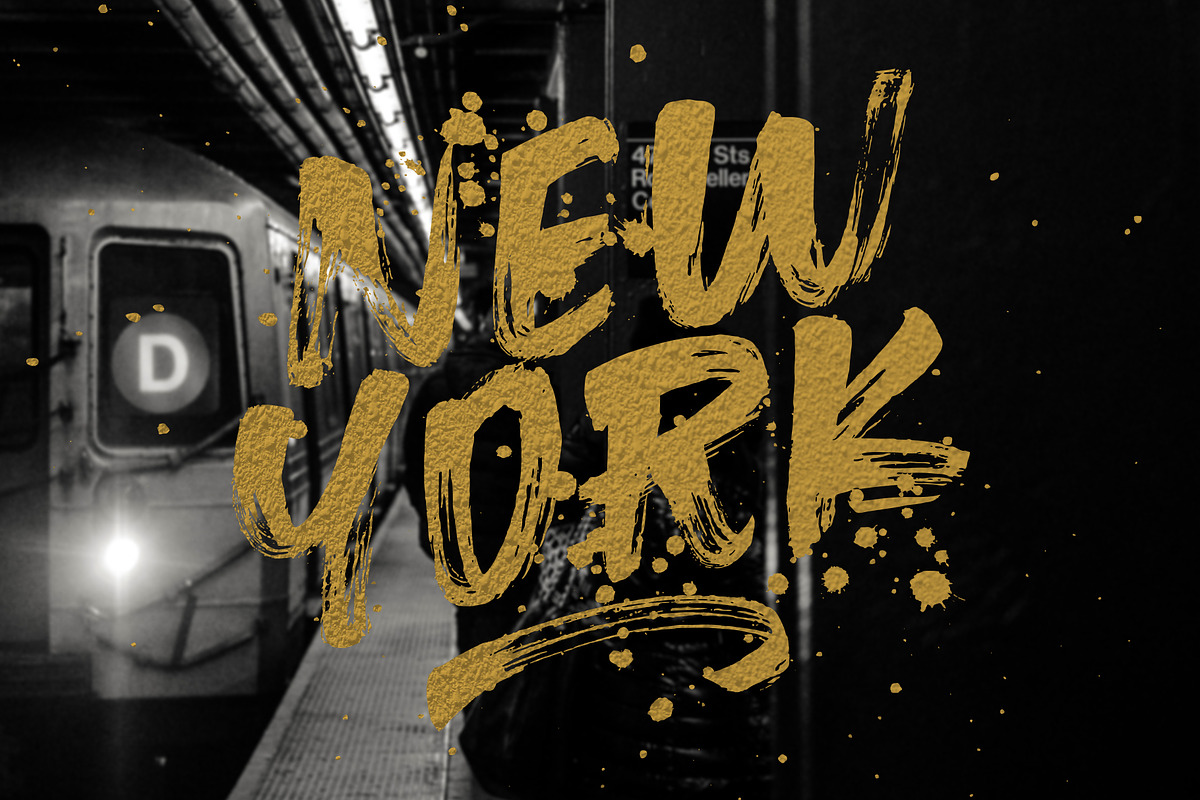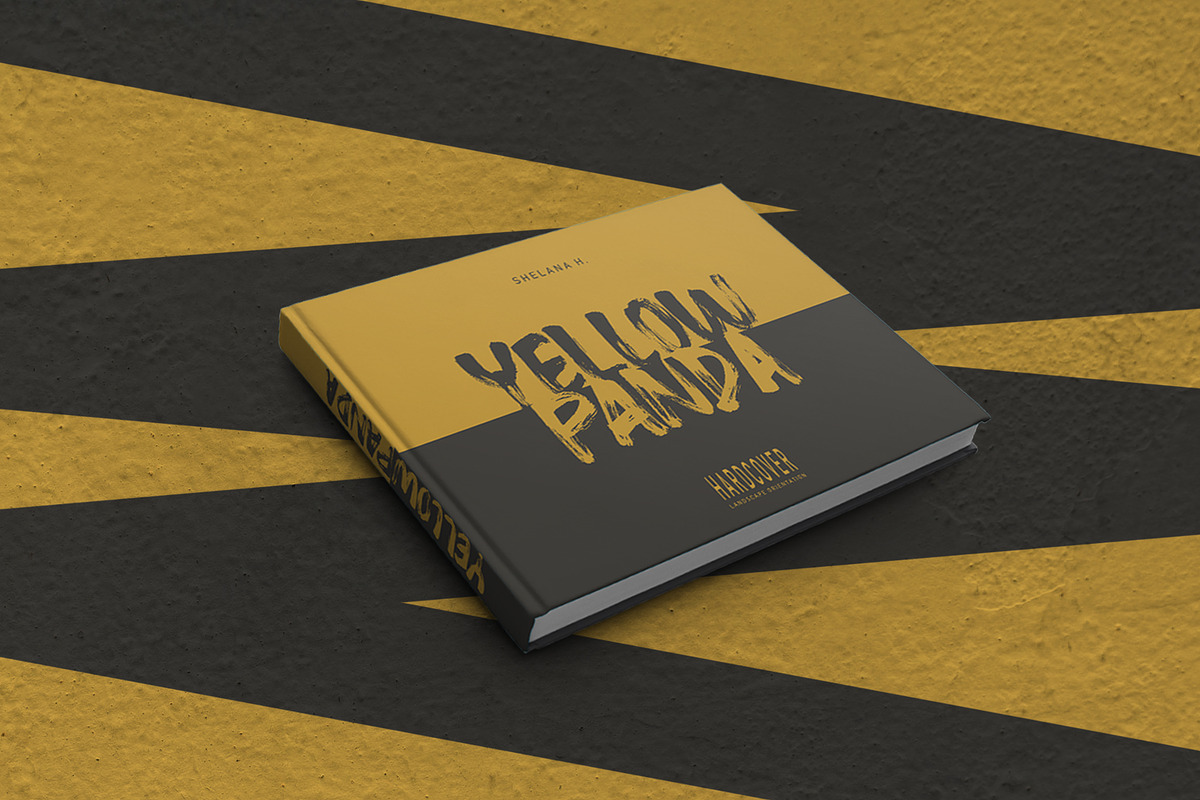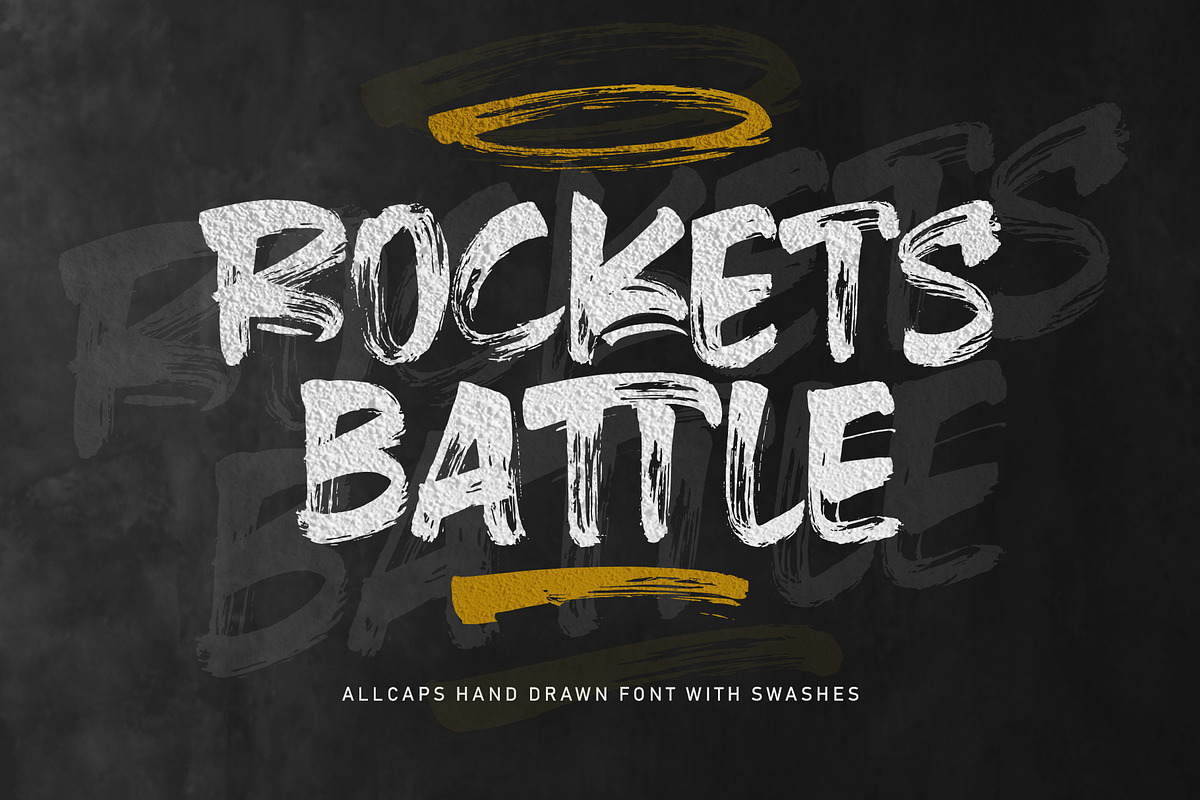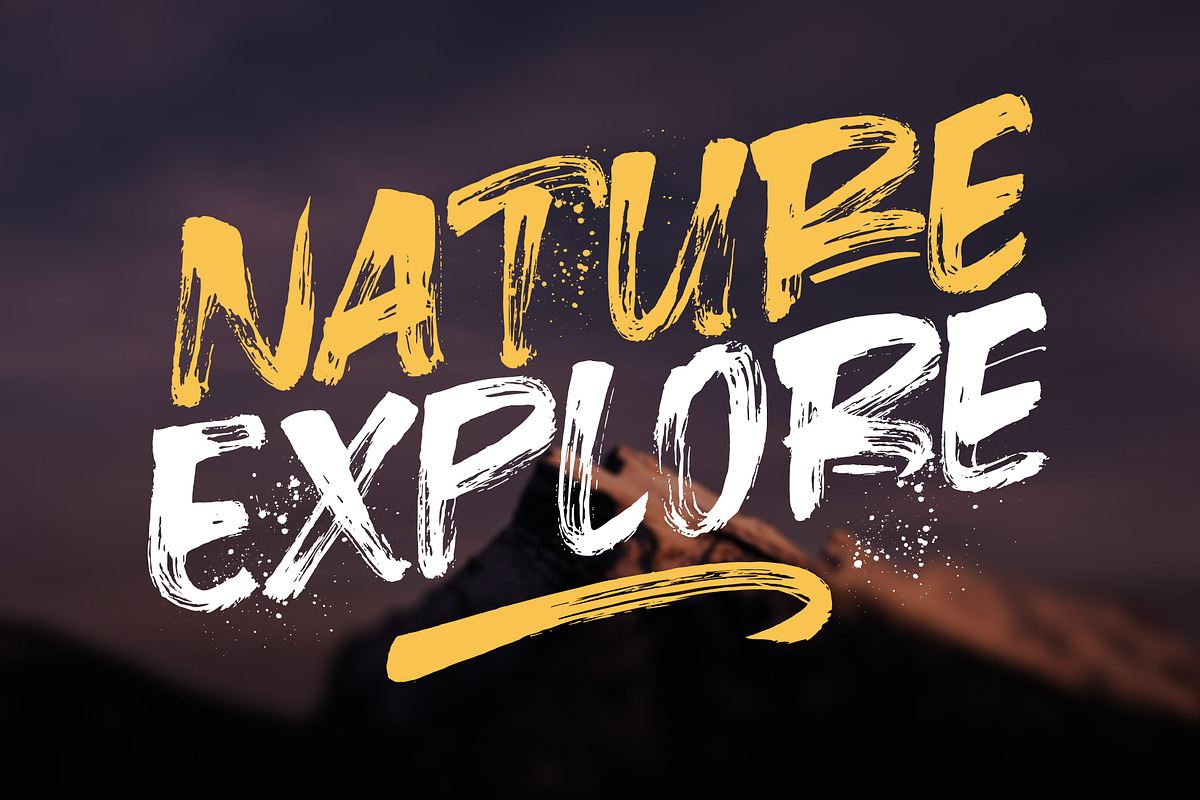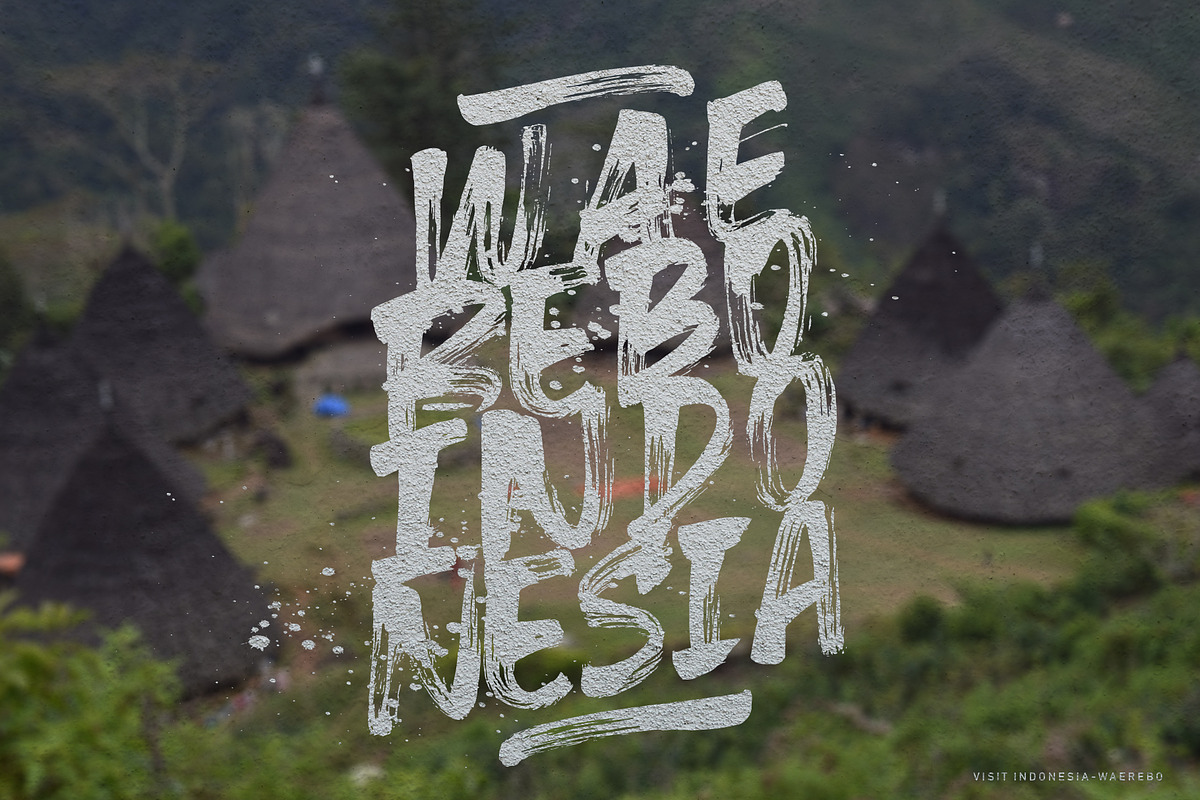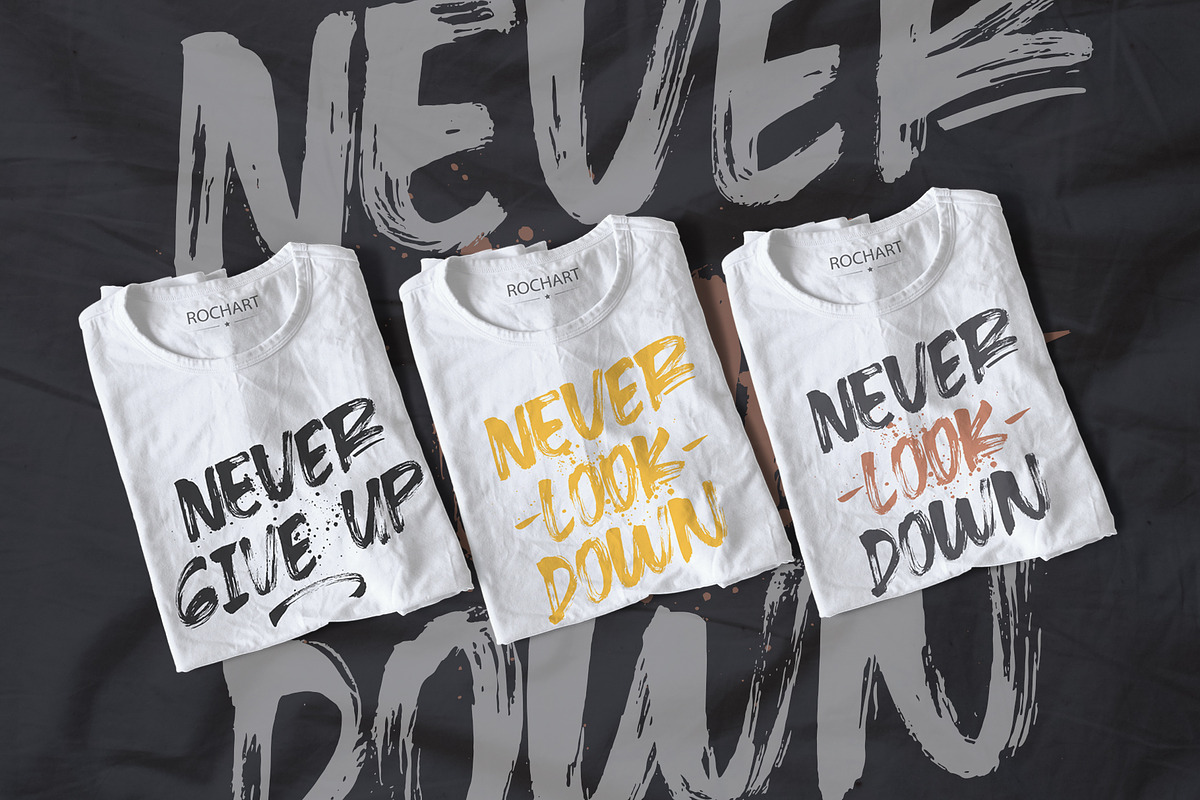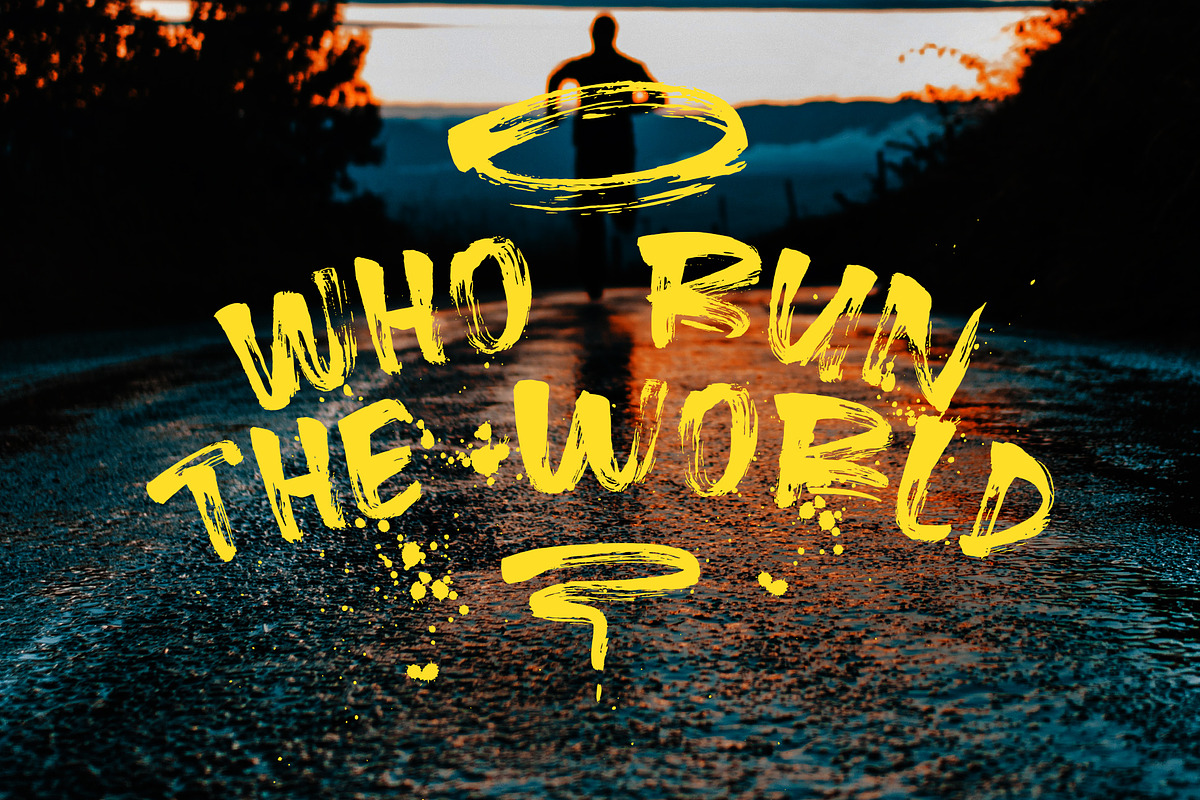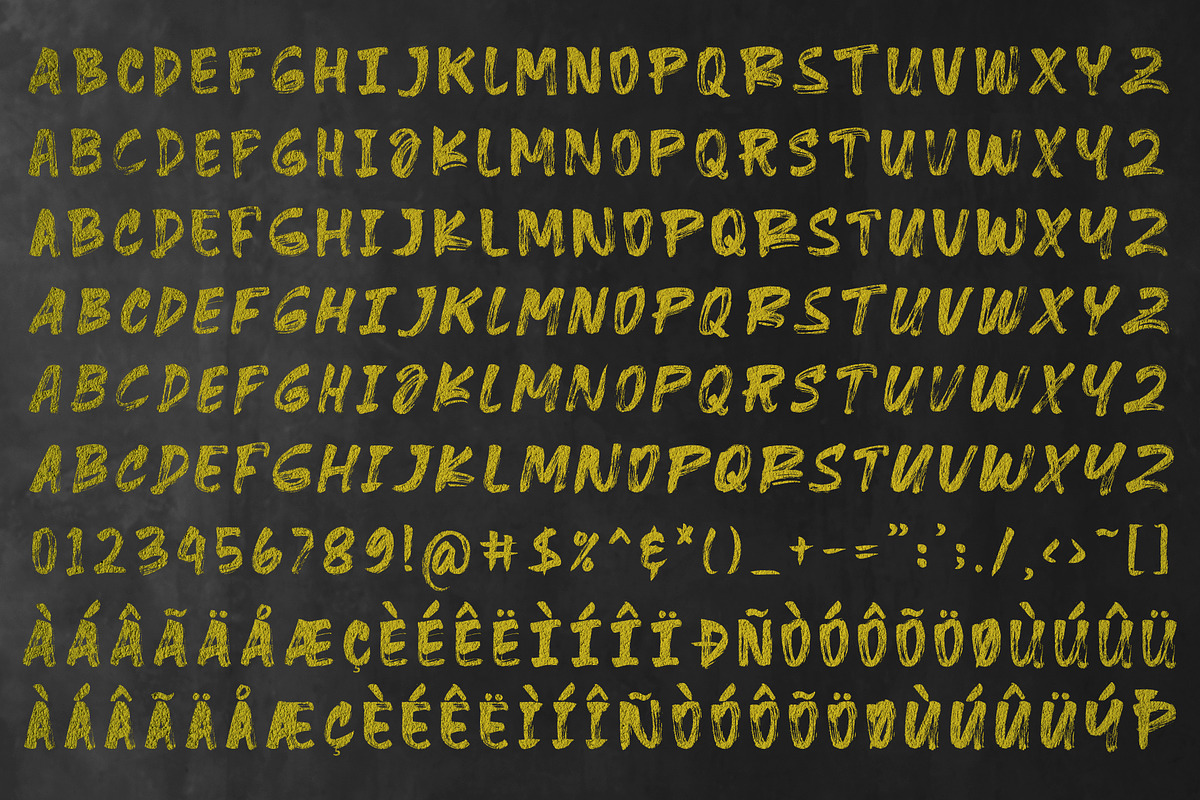
Rockets Battle Hand Drawn Font
Rockets Battle is my hand drawn brush font, and makes with original brush paint, by using high resolution brush stroke images with incredible definition. Its look natural. It will be great for Logotypes, Posters, Digital Lettering Arts, Clean Design, Branding Design, Sign, Merchandise and Social Media Posts.
This font contain of Uppercase, Lowercase, Number, Symbol, Punctuation, also support multilingual and already PUA encoded.
- Rockets Battle Regular
- Rockets Battle Slant
- Rockets Battle Swash